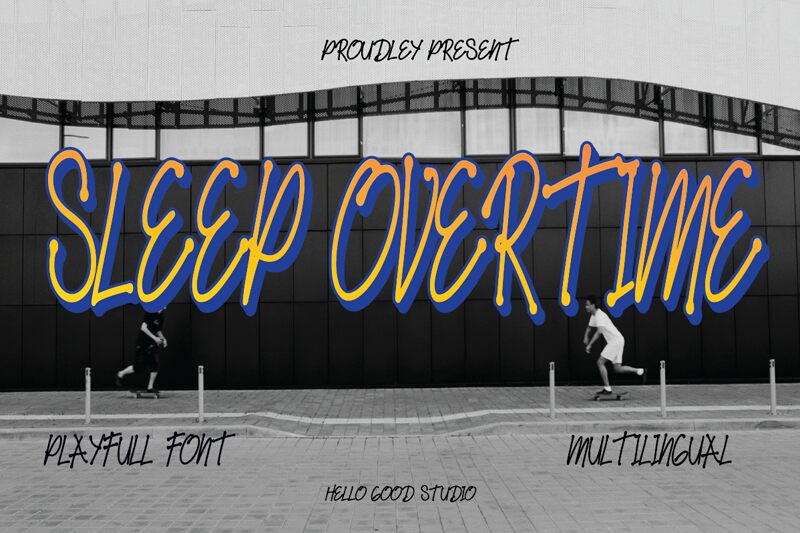
Sleep Overtime
Sleep Overtime font by Studio Hello Good is a light handwritten font with casual elegance. The organic, freeform appearance blends a modern aesthetic with expressive flair. Featuring delicate lines and gentle curves, the typeface beautifully imitates a likable personal handwriting style.
Use this free handwritten font in restaurant menu cards, nursery books, visual quote posts on social media, logo titles on invitations and greeting cards among others. Uniform branding identities would also surely benefit from it thanks to its professional look.